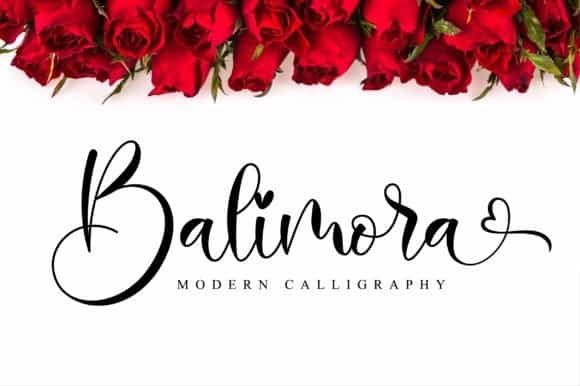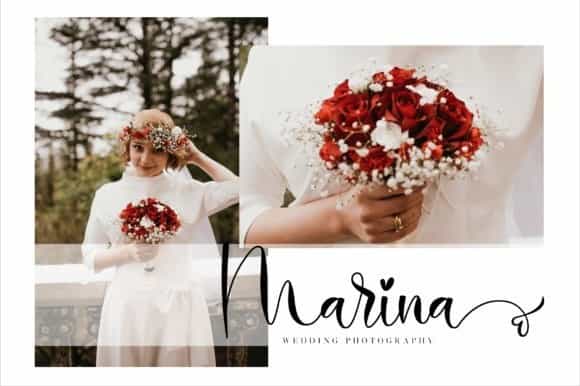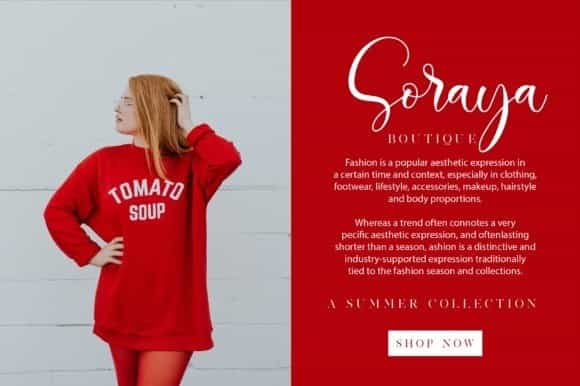
Balimora Font is a trendy modern calligraphy font which will be great for branding, wedding invites and cards, label and more. Balimora is characterized by the open type feature which you can use to play your typography game freely.